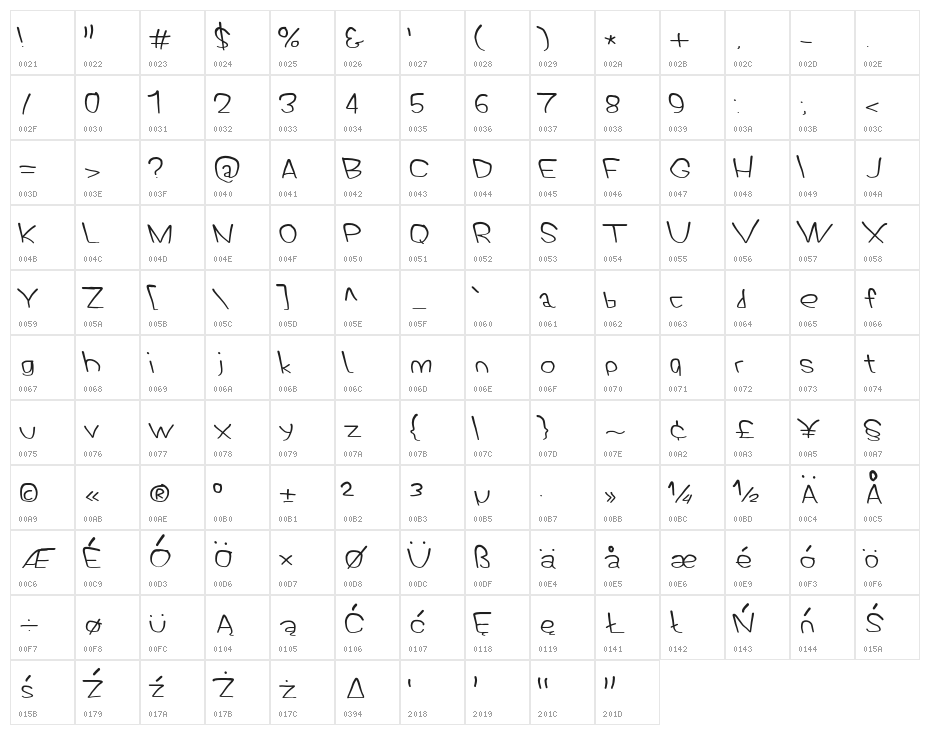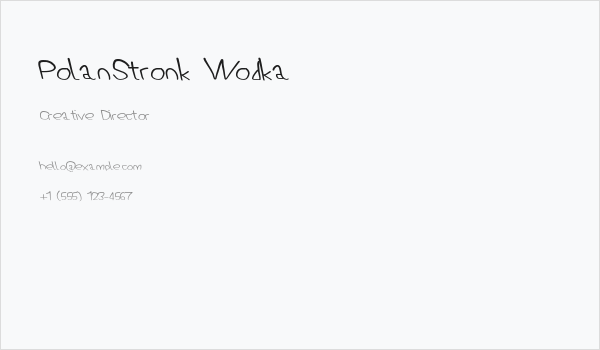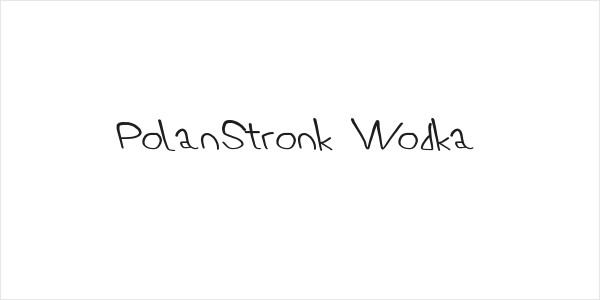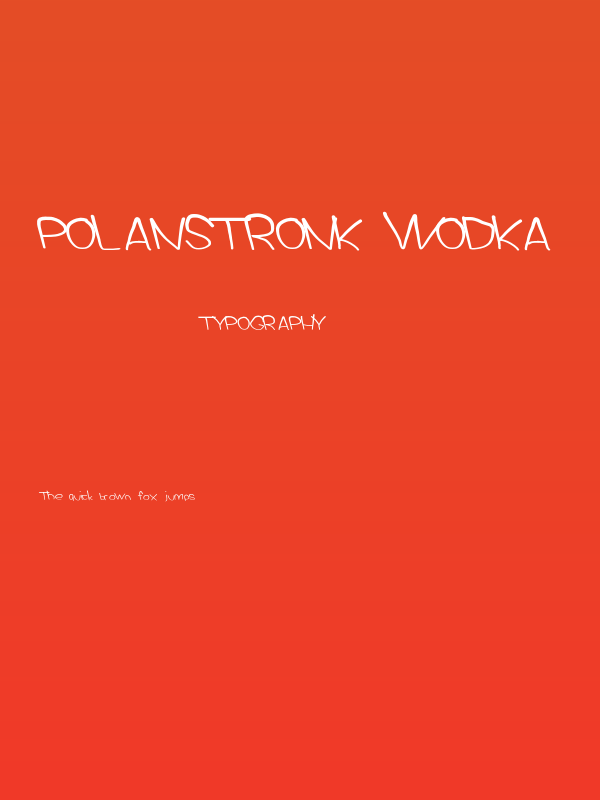
PolanStronk Wodka Font
PolanStronk Wodka Description
This font features a playful and quirky handwritten style, characterized by its irregular and slightly tilted letterforms. The strokes are uneven, giving it a casual and informal appearance. The uppercase and lowercase letters maintain a consistent style, with the uppercase being slightly larger and more pronounced. The numbers and special characters follow the same playful aesthetic, making the font suitable for creative and fun projects. The overall look is reminiscent of a doodle or sketch, adding a personal touch to any design.
| Proposed Projects | Ideal for children's books, greeting cards, informal invitations, and playful branding. |